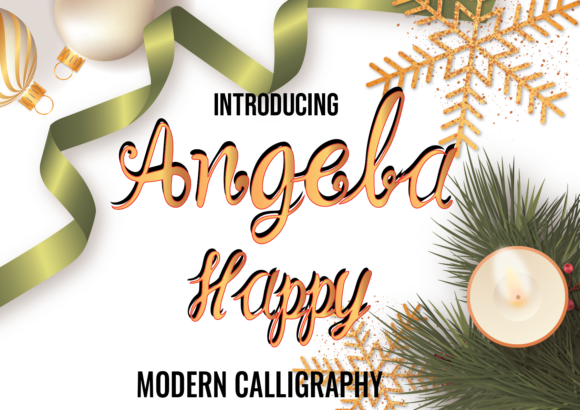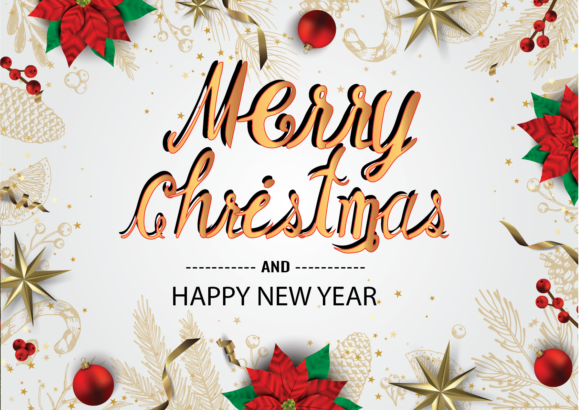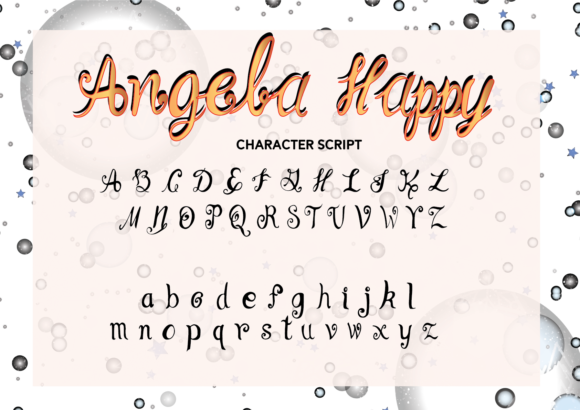
Angela Happy Font
About Angela Happy Font
Angela Happy is a cute and casual handwritten font with an incredibly friendly feel. It can be used for invitations, branding, blog posts, and much more!